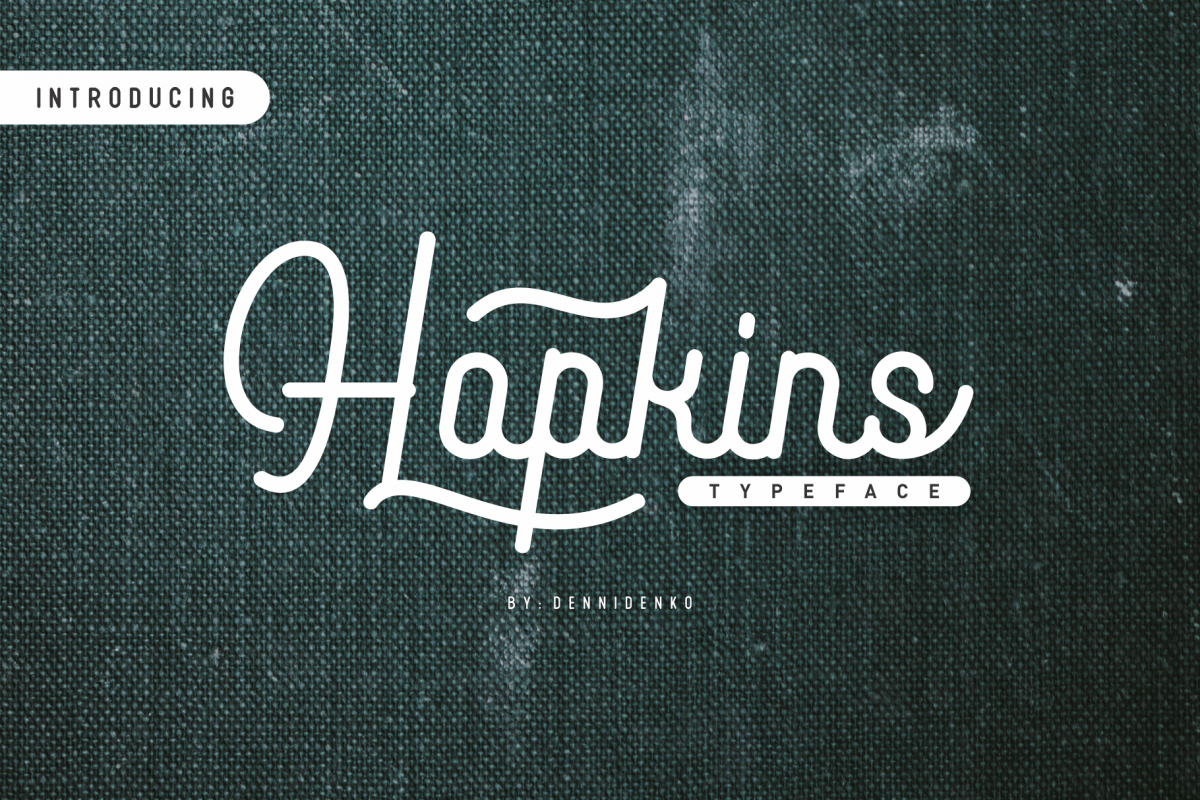
Created By dennidenko
Hopkins monoline script
Hopkins
introducing our new monoline script typeface hopkins. this typeface contain a lot of stylistic alternate and some of ligature. perfect for any design purpose.